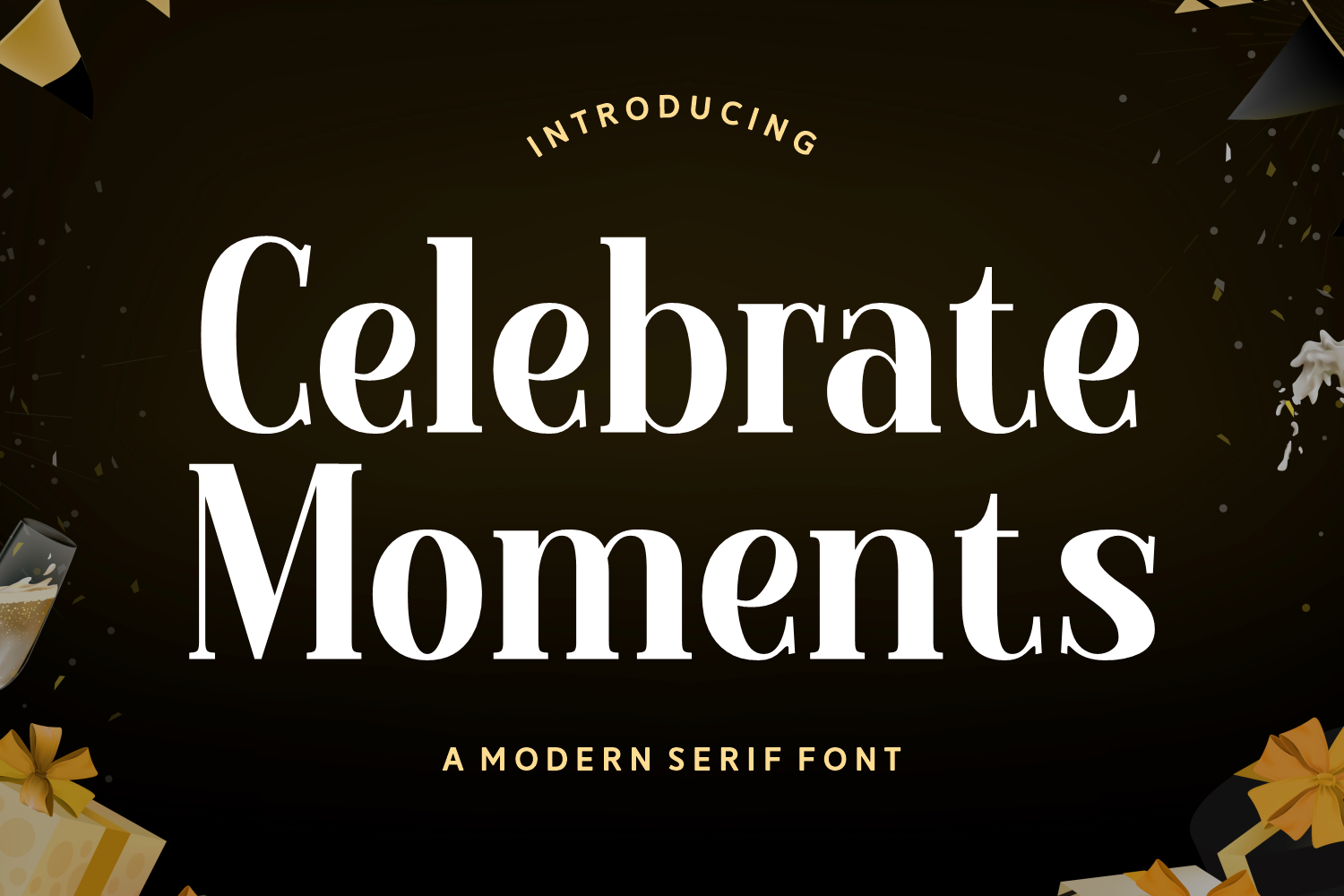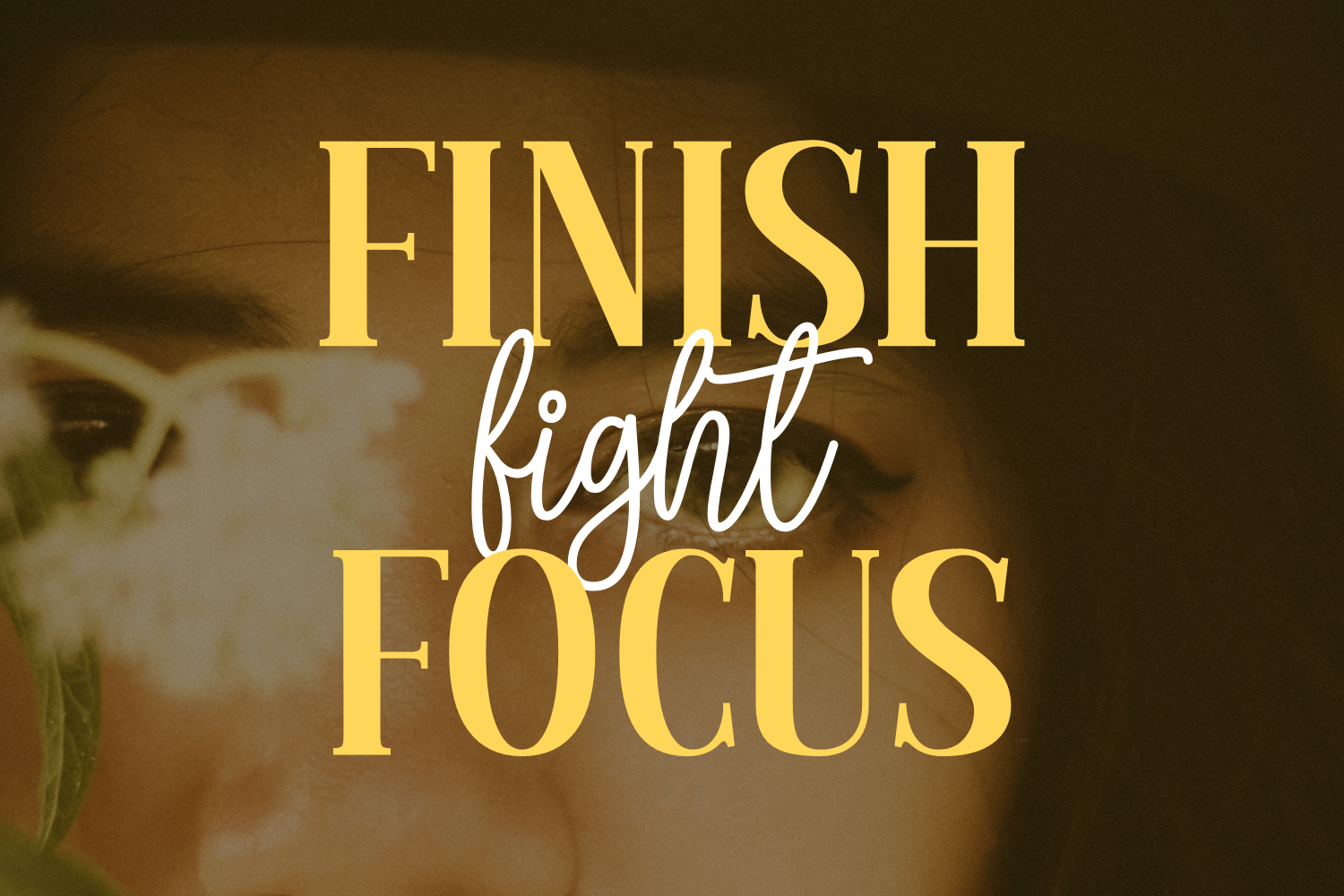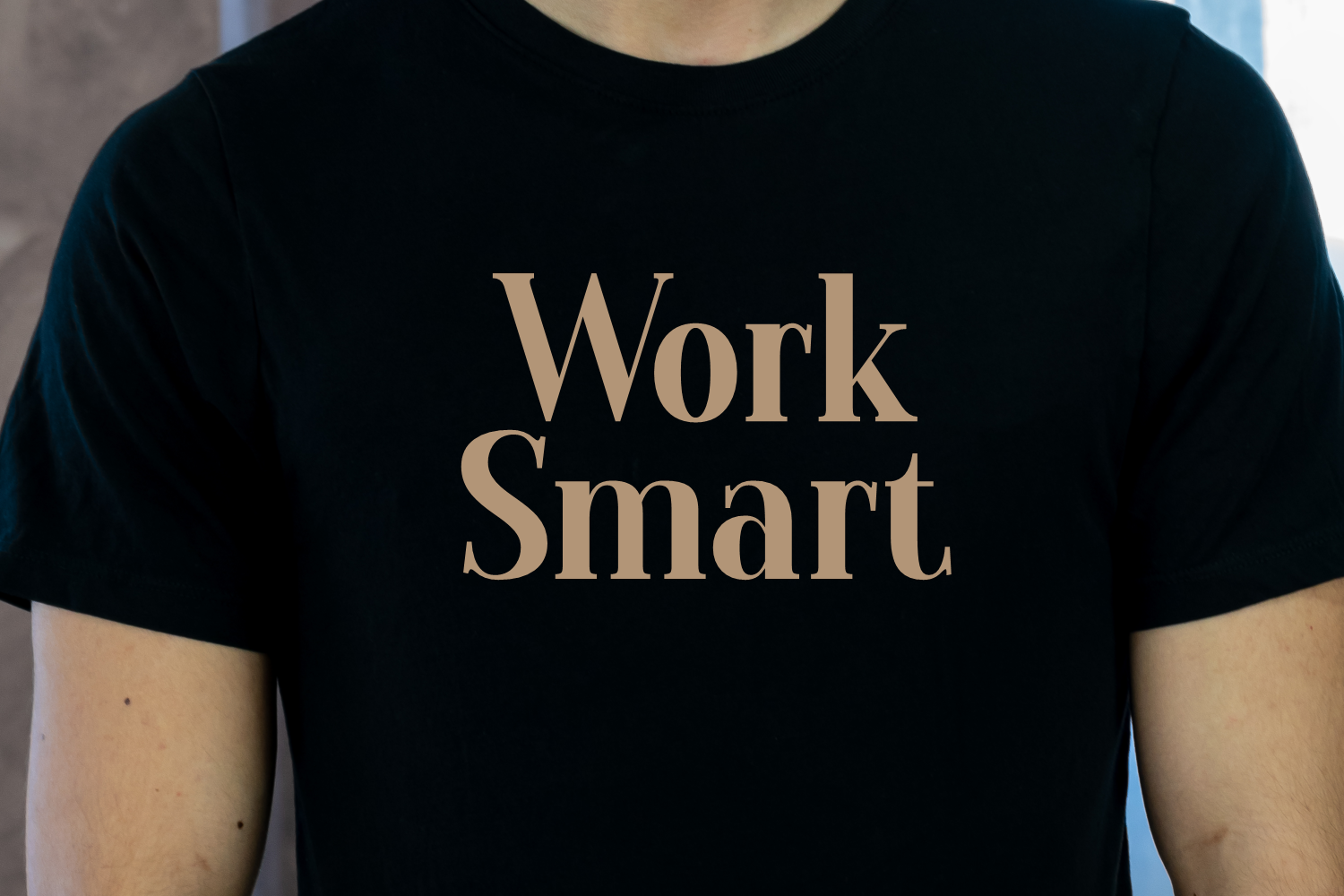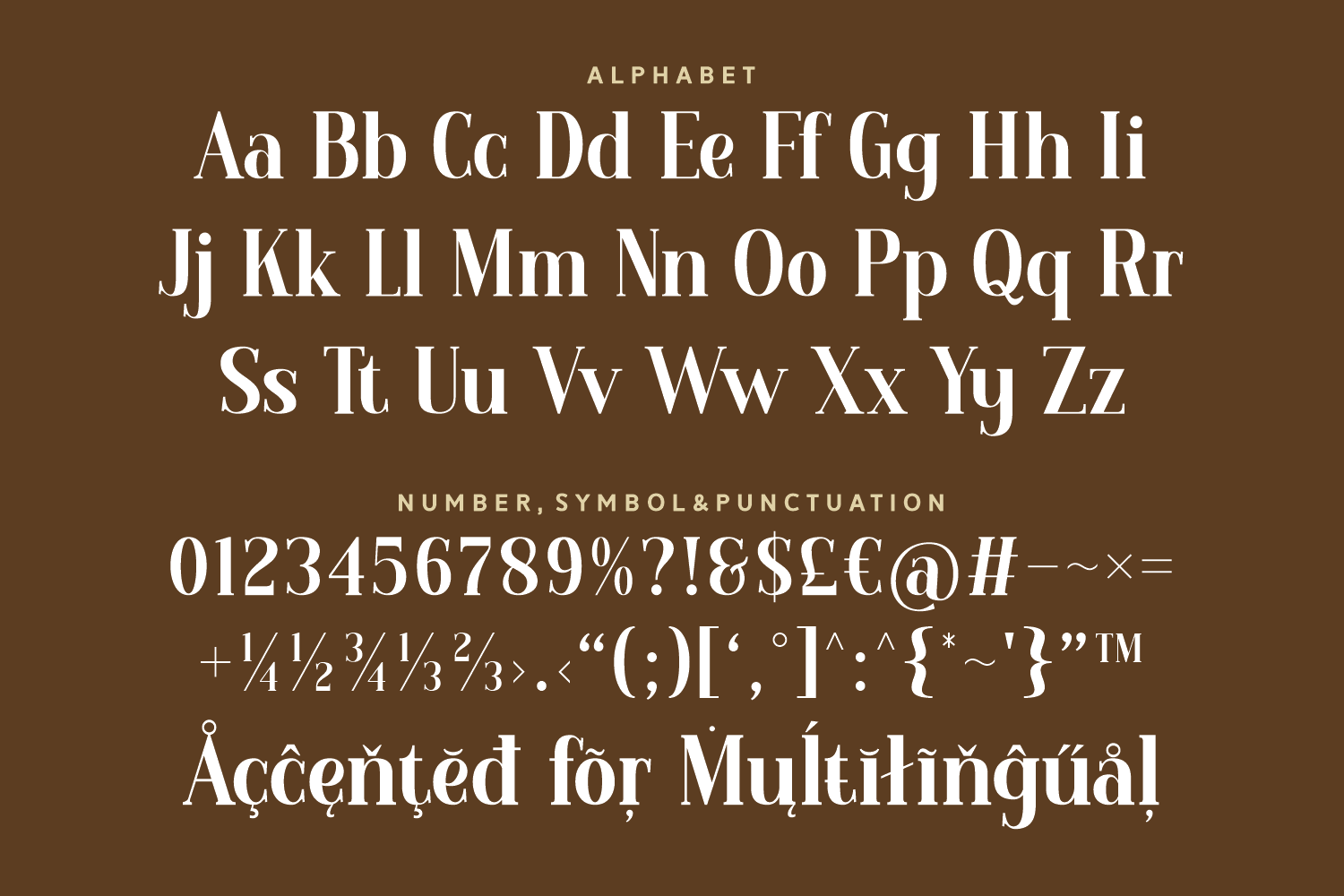
Celebrate Moments
Celebrate Moments is a cheerful and confident modern serif font made for impactful displays. Featuring soft curves and strong verticals, it brings festive energy to invitations, packaging, event branding, and celebratory visuals.